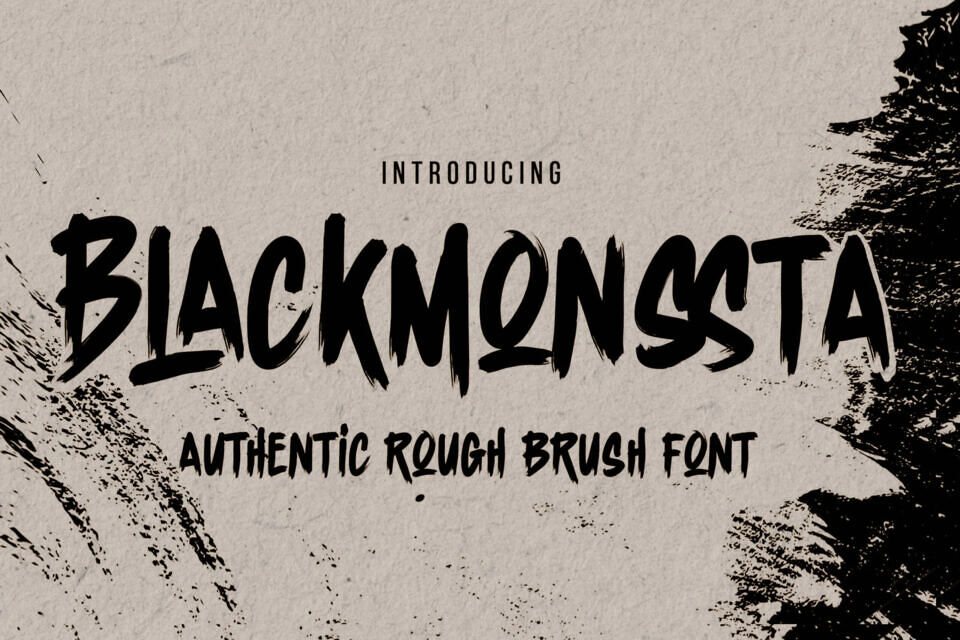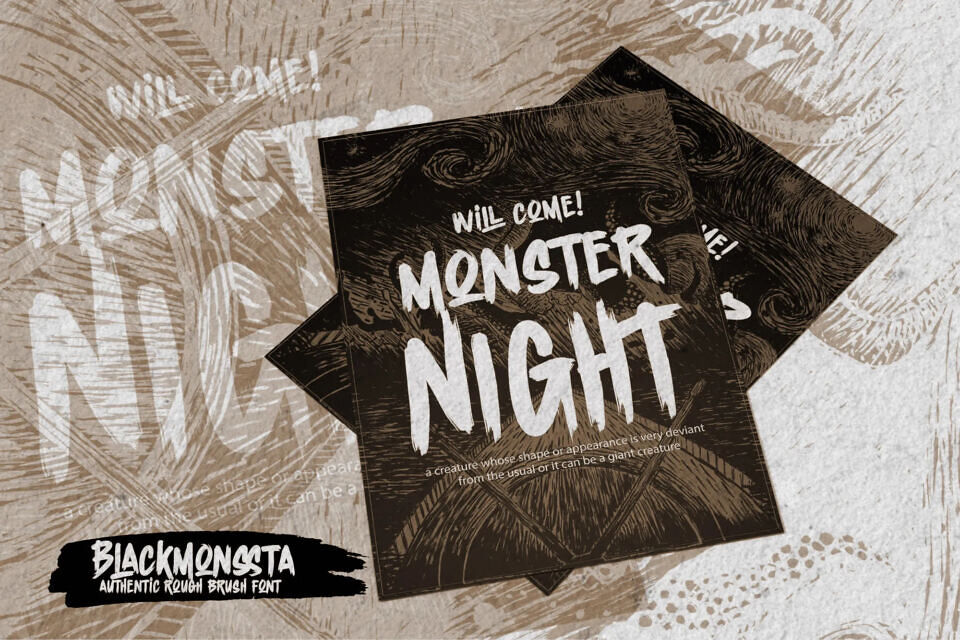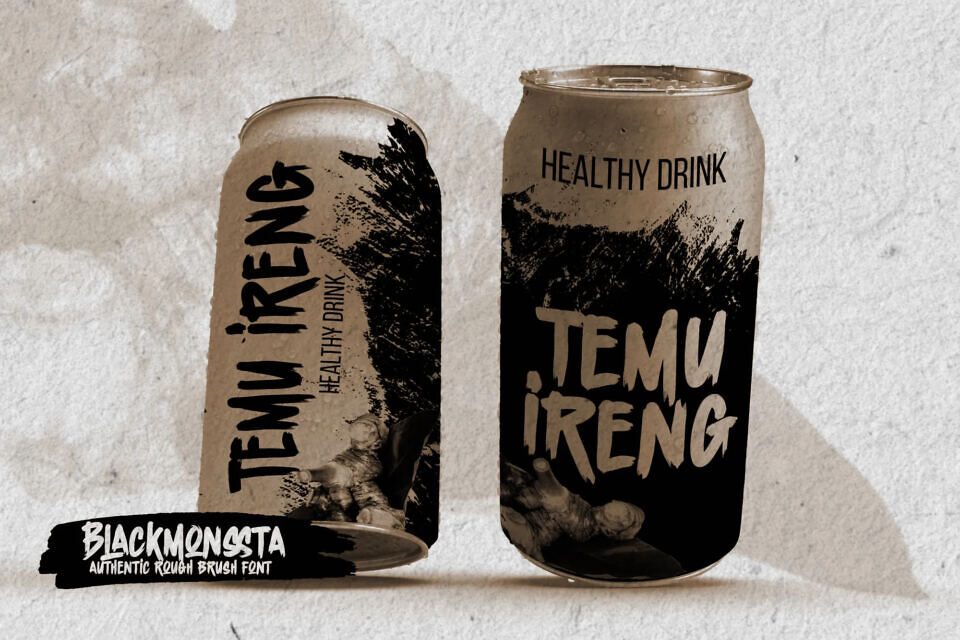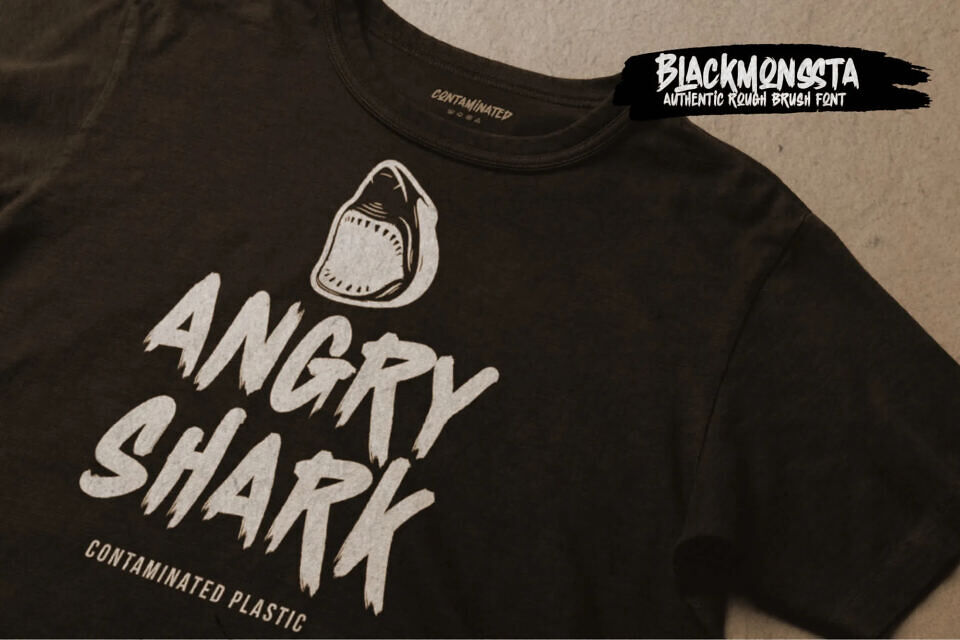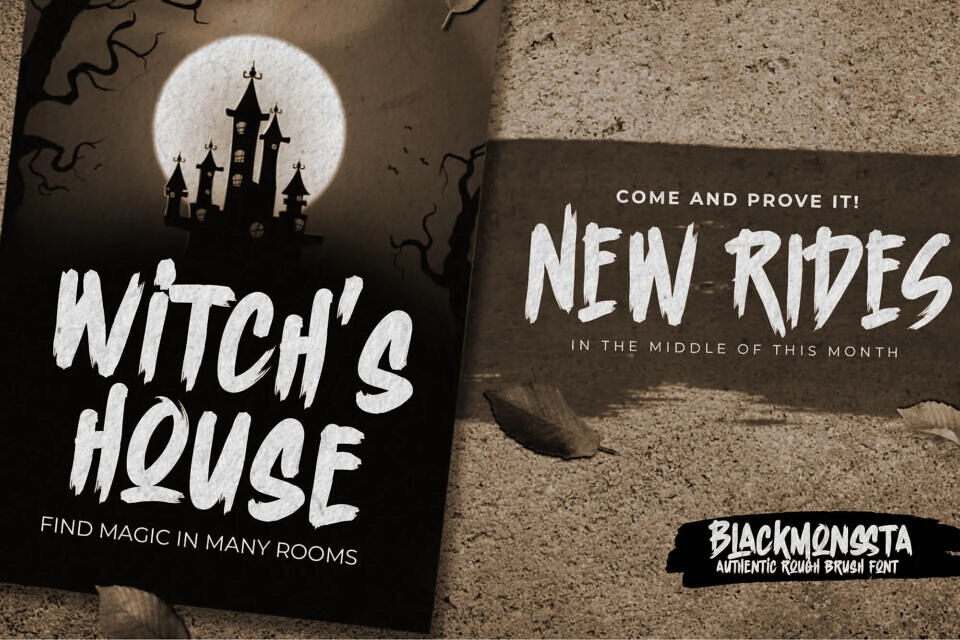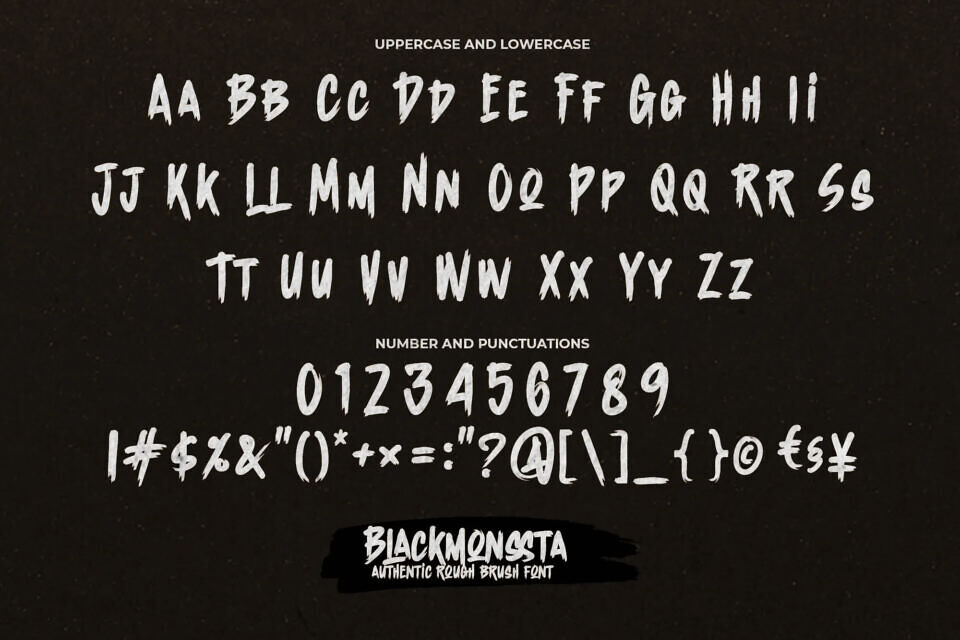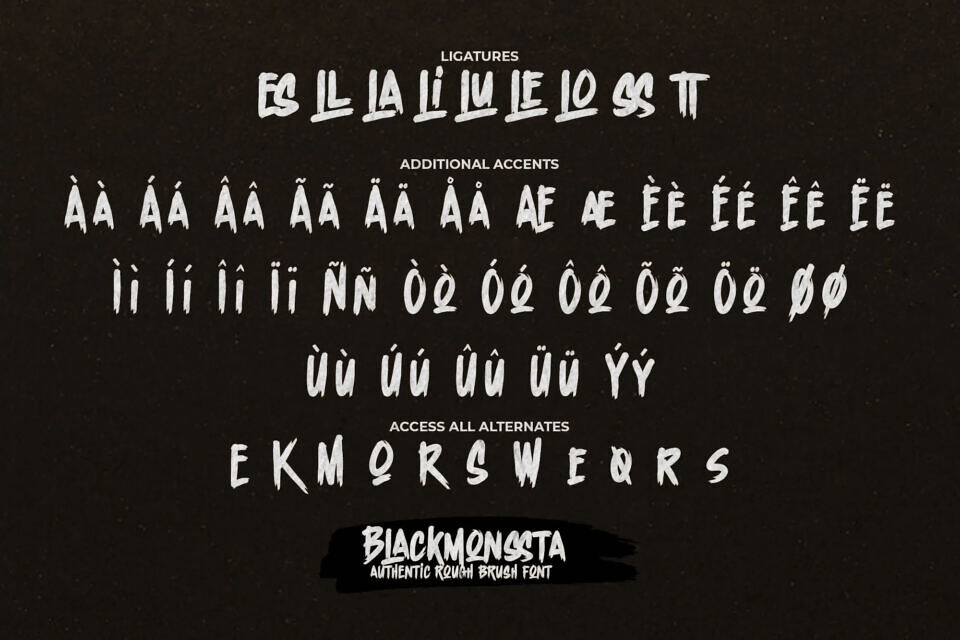
Blackmonssta Font
BLACKMONSSTA is an authentic rough brush typeface created with energetic strokes, bold textures, and expressive hand-drawn character. Designed to capture the raw intensity of brush lettering, this font delivers a dynamic, aggressive, and artistic presence—perfect for designs that demand power, motion, and high-impact visuals.
Its jagged edges, natural stroke variations, and paint-style textures give Blackmonssta a wild handcrafted feel that stands out instantly. This typeface blends raw artistic chaos with striking readability, making it highly effective for bold branding and dramatic display compositions.